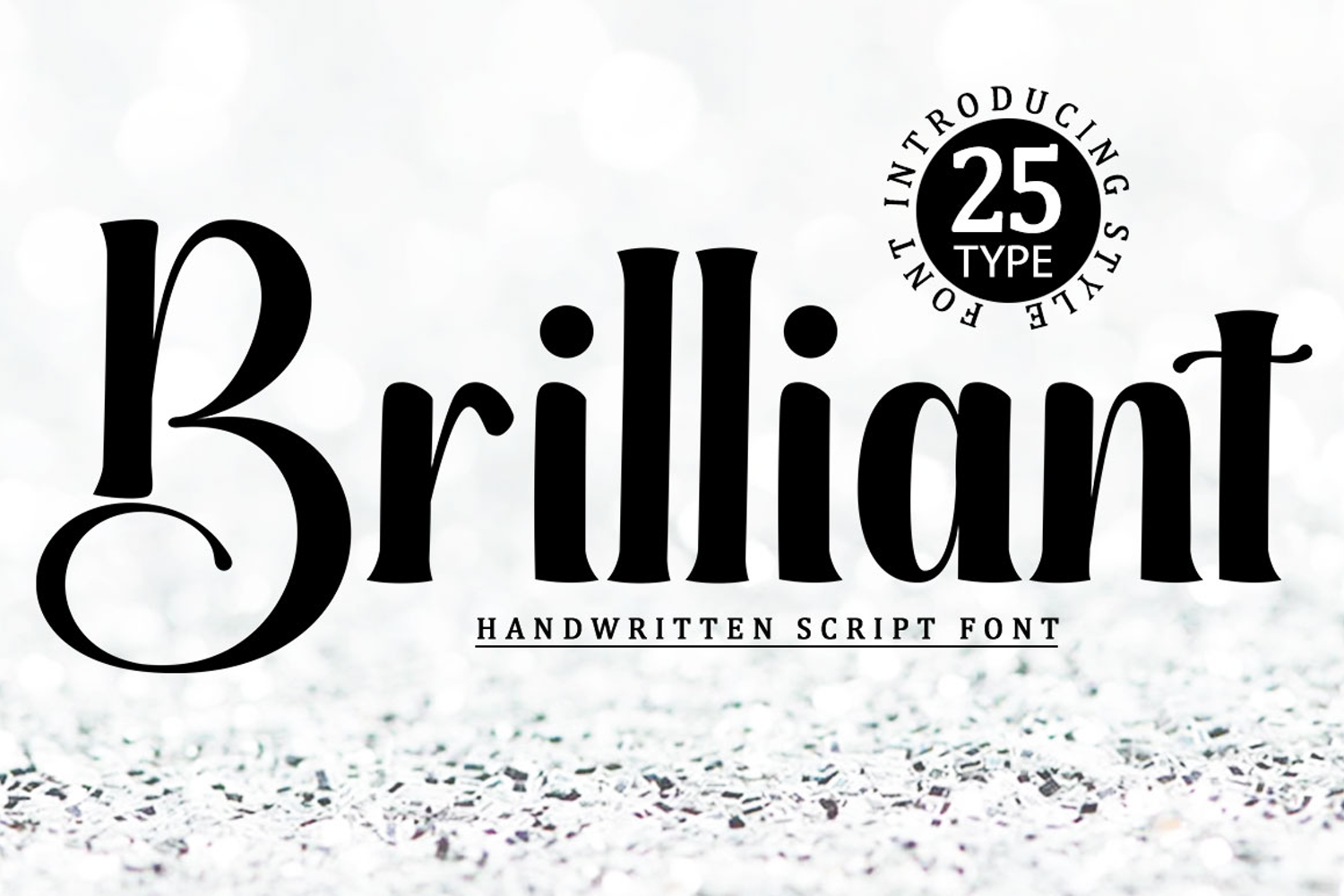
Brilliant - Family Font
Brilliant is a typeface from a family of 25 typefaces that has a beautiful and elegant touch.
Brilliant is attractive because it is sleek, clean, feminine, sensual, glamorous, simple, and very easy to read, thanks to the many beautiful letter connections. I also offer a number of decent style alternatives for some of the letters. The classic style is perfect for use in various formal forms such as invitations, labels, restaurant menus, logos, fashion, makeup, stationery, novels, magazines, books, greeting/wedding cards, packaging, labels, or any type of advertising purpose. ...
-Has 25 New Type Fonts.
-Regular, Slant, Bold, Bold Slant, Outline, Hatching, sambo, Condensed.